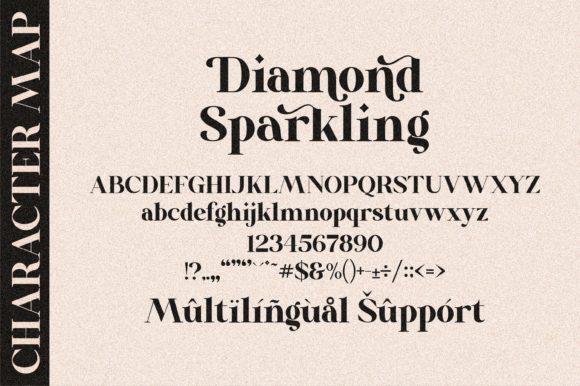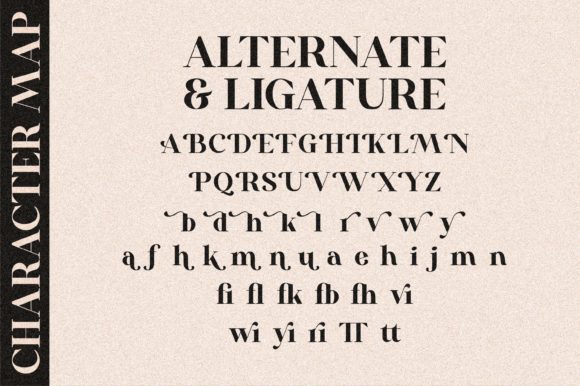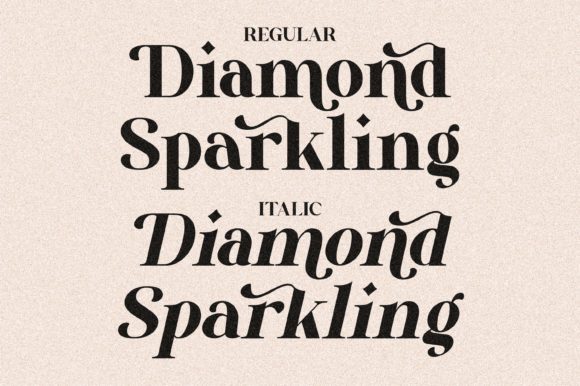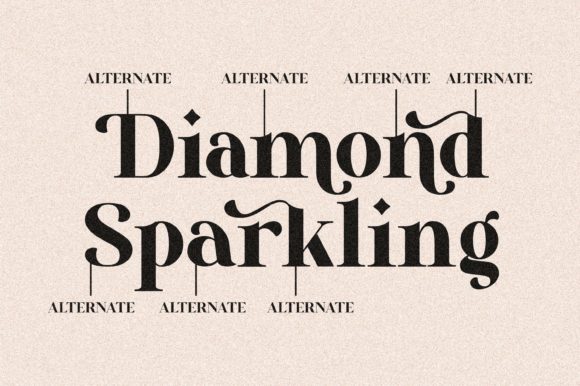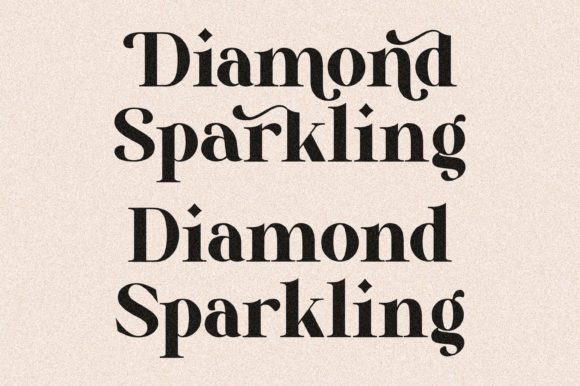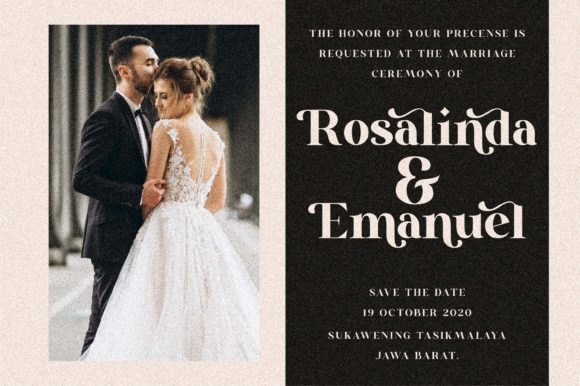
Diamond Sparkling Font: Elevate Your Designs with Elegance and Sophistication
Are you looking for a font that can add a touch of luxury and sophistication to your designs? Look no further than the Diamond Sparkling font. This elegant serif font is perfect for designers and crafters who want to create stunning visual content that stands out from the crowd. In this article, we’ll explore the features and benefits of the Diamond Sparkling font, and show you how to make the most of this beautiful typeface.
What is Diamond Sparkling Font?
Diamond Sparkling is an elegant serif font that is designed to help you create realistic and spectacular designs. With its classic and sophisticated look, this font is perfect for a wide range of design projects, from branding and advertising to packaging and digital media. Whether you’re a professional designer or a crafter, Diamond Sparkling font is a great addition to your font library.
Key Features of Diamond Sparkling Font
So, what makes Diamond Sparkling font so special? Here are some of its key features:
- Elegant Serif Design: Diamond Sparkling font features a classic serif design that exudes elegance and sophistication.
- PUA Encoded: This font is PUA (Private Use Area) encoded, which means you can access all of the glyphs and swashes with ease.
- High-Quality Design: The font is designed with high-quality and precision, ensuring that it looks great in any design project.
- Versatile: Diamond Sparkling font is versatile and can be used for a wide range of design projects, from print to digital media.
Benefits of Using Diamond Sparkling Font
So, why should you use Diamond Sparkling font in your designs? Here are some benefits:
- Adds Luxury and Sophistication: The font’s elegant design adds a touch of luxury and sophistication to your designs.
- Easy to Use: The PUA encoding makes it easy to access all of the glyphs and swashes, even for beginners.
- Increases Readability: The serif design of the font increases readability, making it perfect for body text and headings.
- Stand Out from the Crowd: With Diamond Sparkling font, you can create designs that stand out from the crowd and leave a lasting impression.
How to Use Diamond Sparkling Font
- Experiment with Glyphs and Swashes: Use the PUA encoding to access all of the glyphs and swashes and experiment with different design elements.
Tips and Tricks for Using Diamond Sparkling Font
Here are some tips and tricks to help you make the most of Diamond Sparkling font:
- Use it for Headings and Titles: Use Diamond Sparkling font for headings and titles to add a touch of luxury and sophistication.
- Pair it with Other Fonts: Pair Diamond Sparkling font with other fonts to create a unique and interesting design.
- Experiment with Colors: Experiment with different colors to find the perfect combination that works with your design.
- Use it for Branding: Use Diamond Sparkling font for branding projects to create a consistent and recognizable visual identity.
In conclusion, Diamond Sparkling font is a beautiful and elegant serif font that can add a touch of luxury and sophistication to your designs. With its PUA encoding and high-quality design, this font is perfect for designers and crafters who want to create stunning visual content. Whether you’re working on a branding project, a digital media project, or a packaging project, Diamond Sparkling font is a great choice. So why not give it a try and see the difference it can make in your designs?